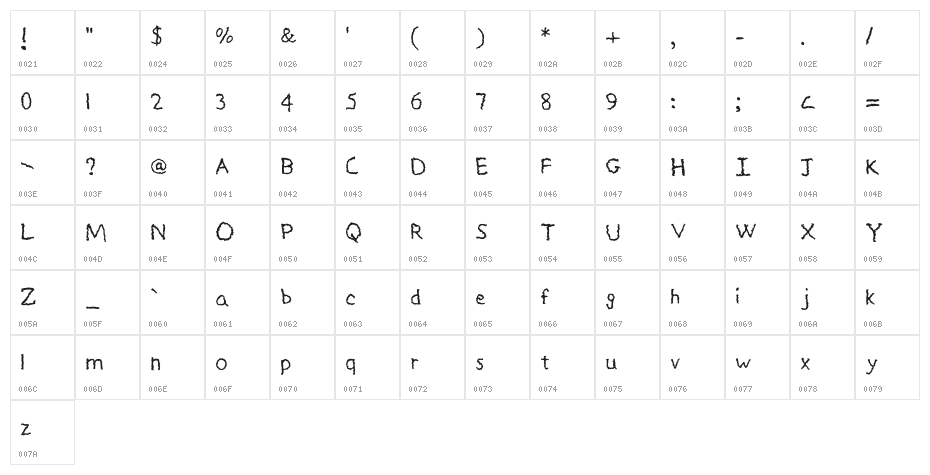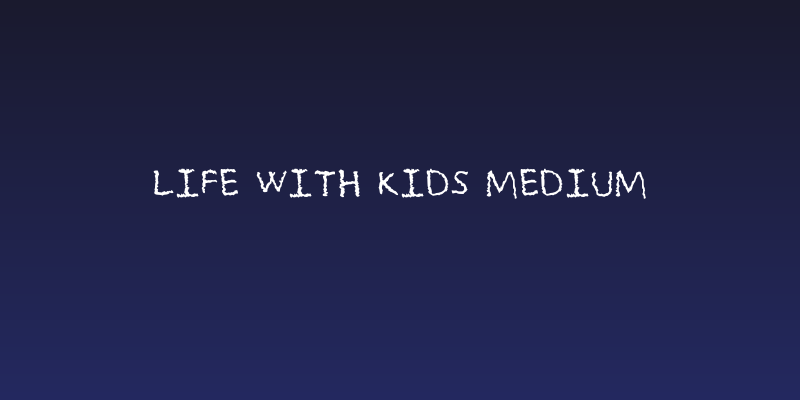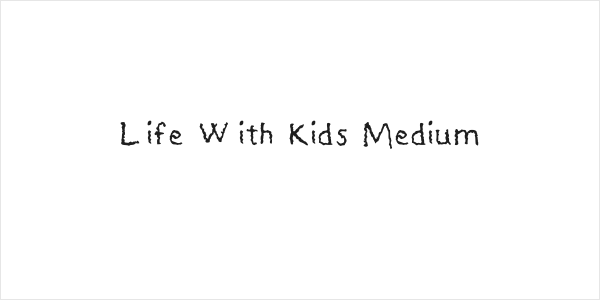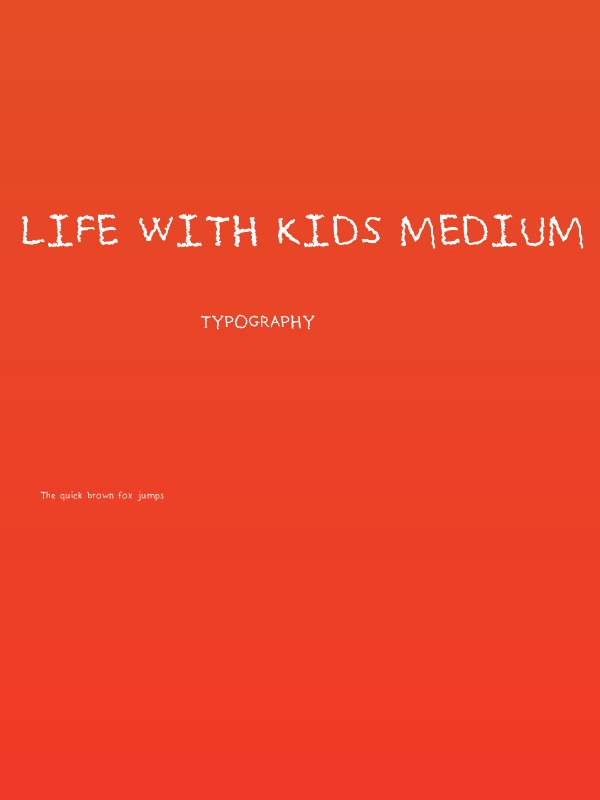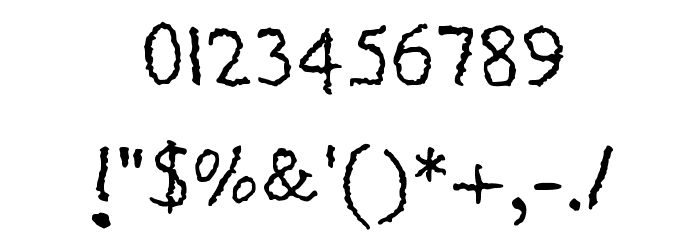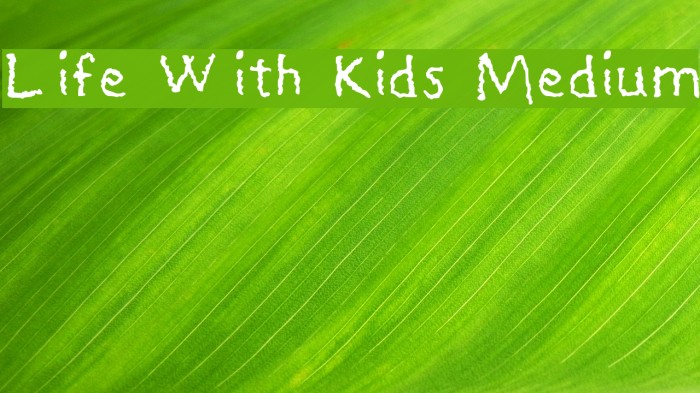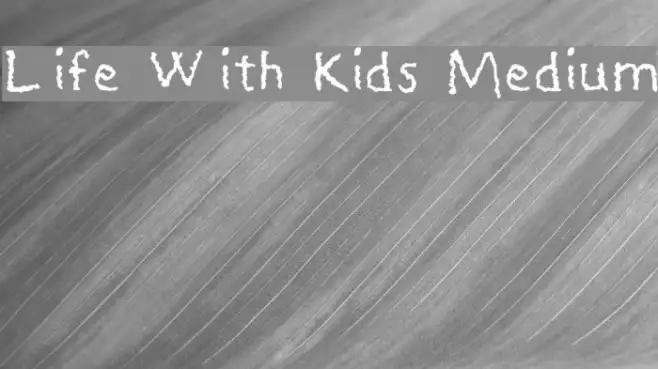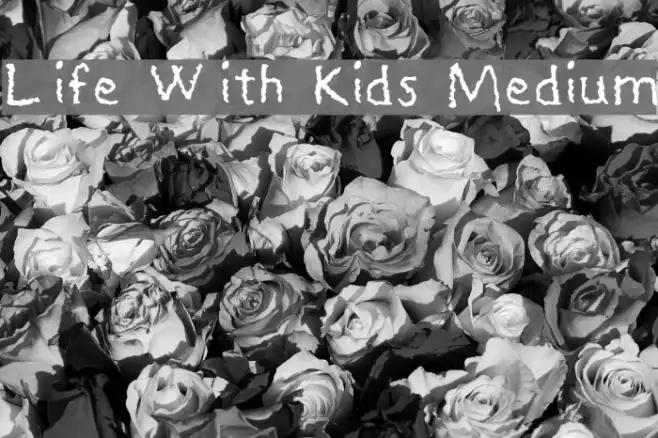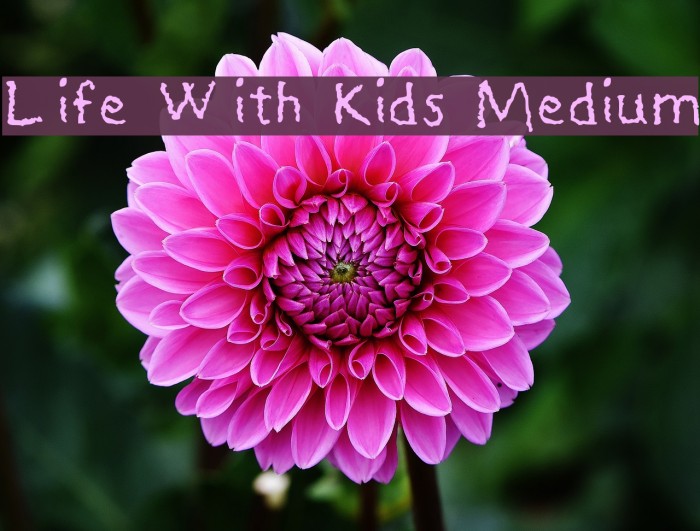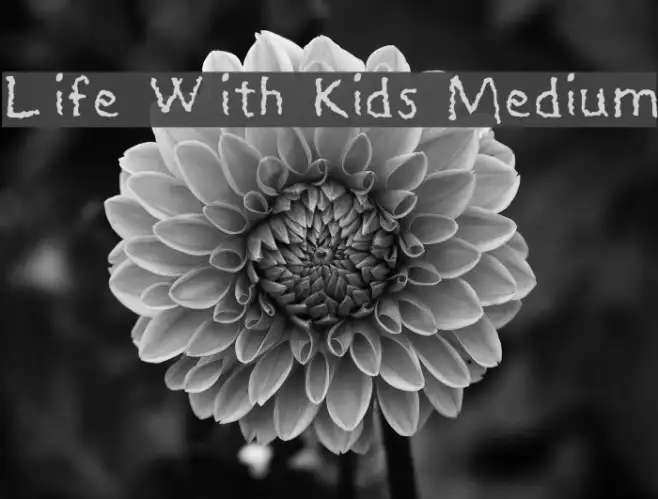
Life With Kids Medium Font
Life With Kids Medium Description
This playful and whimsical font features a hand-drawn, textured appearance that evokes a sense of fun and creativity. The irregular, slightly wavy lines give it a casual, informal feel, making it ideal for projects that aim to convey a sense of spontaneity and joy. The characters are well-spaced, ensuring readability while maintaining their unique, artistic flair. This font is particularly suitable for children's books, playful branding, and creative projects that require a touch of personality and charm.
| Proposed Projects | Ideal for children's books, playful branding, greeting cards, and creative projects. |